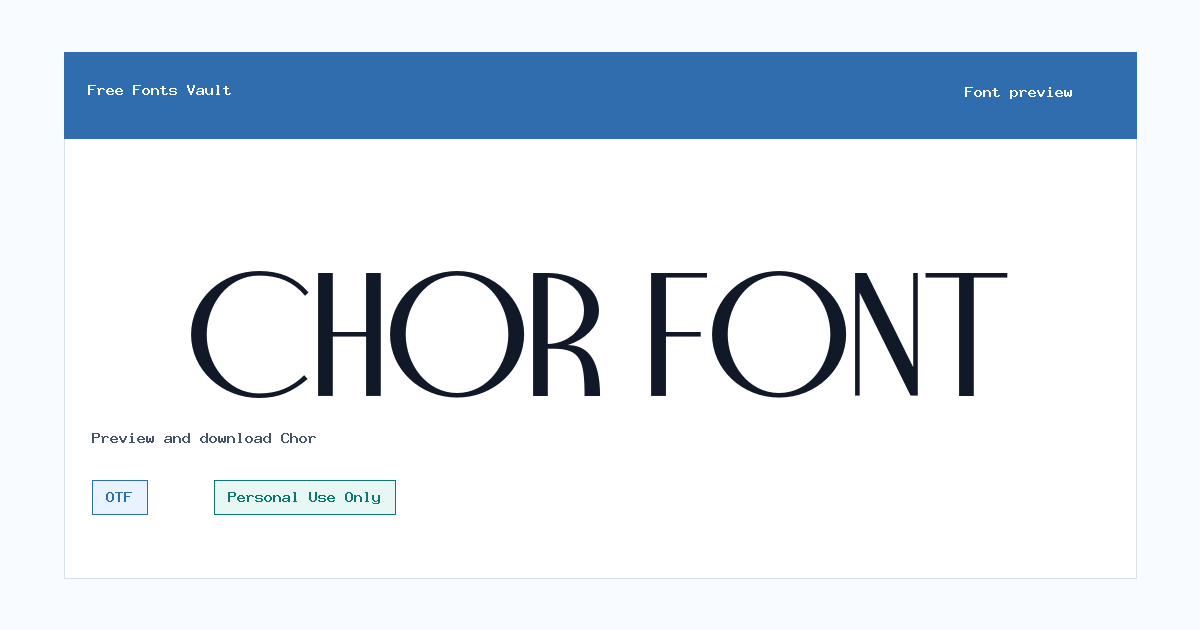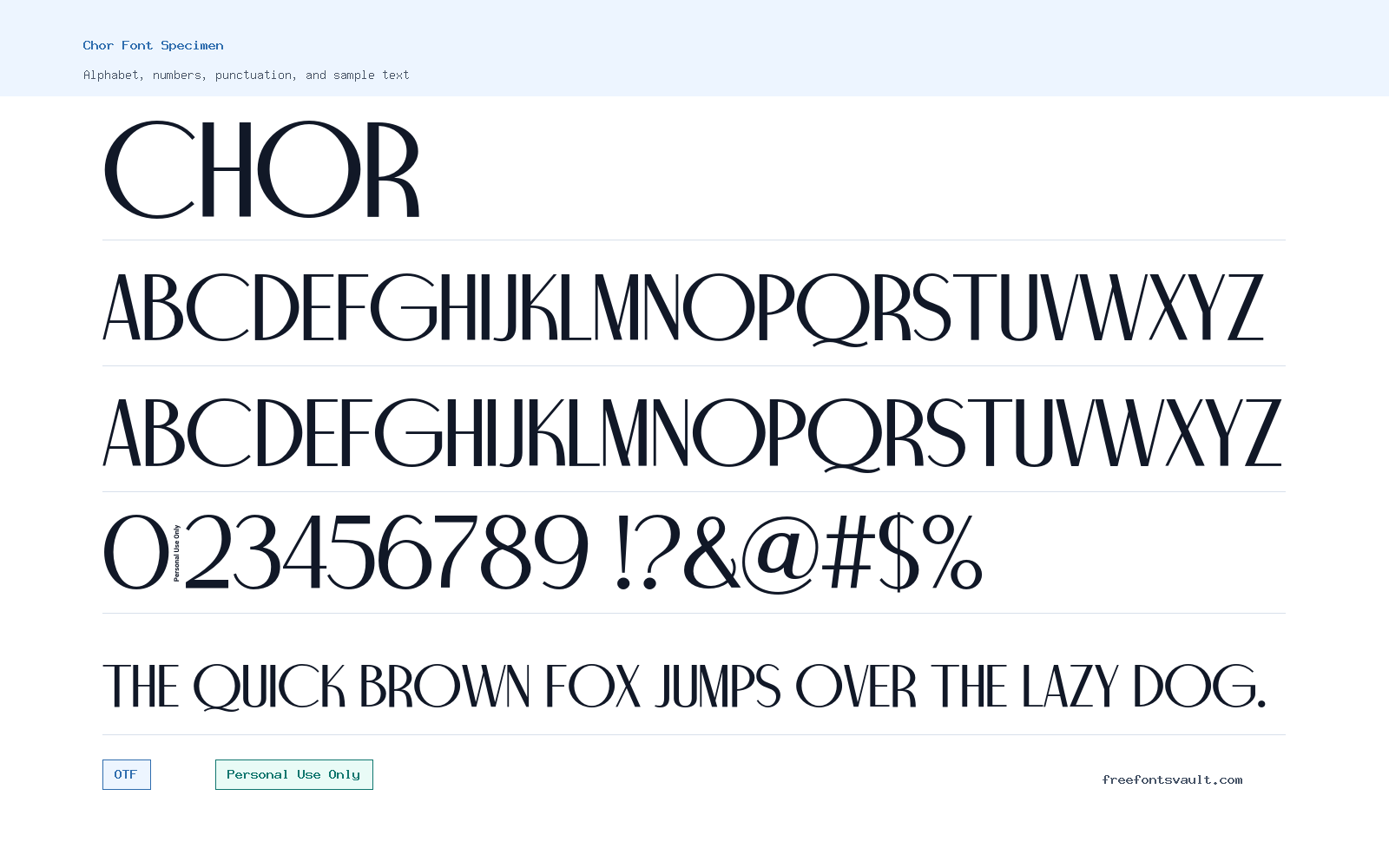
Chor
Chor font preview showing the family name
Chor Font
Chor font specimen showing alphabet, numbers, and sample text
Chor font.
Chor is a sans serif font by Zidan Zamzani, offered in an OTF regular style for personal-use projects. It is a practical choice when you want clean display lettering for previews, mockups, posters, and short design text.
About Chor Font
Chor is a simple sans serif typeface with a regular weight and normal style. Because the available file is an OTF font, it should work well in common design apps that support OpenType fonts, including layout, branding mockup, poster, and image-editing tools. The font page identifies Chor as a sans serif font and lists its license as Personal Use Only, so the safest way to approach it is as a font for non-commercial design practice, personal graphics, school projects, draft branding ideas, and private visual experiments.
• Sans serif regular style suitable for clean short-form display text
• Single regular variant with normal style and 400 weight
Use Chor where clean sans serif lettering is needed, especially in short text such as titles, labels, cover graphics, and mockup headings. Before using it in a finished design, preview punctuation, numbers, uppercase words, lowercase words, and any special characters you need. Pair it with a quiet serif or a neutral sans serif for supporting text, and avoid using too many bold visual elements around it if you want the font to stay readable.
Who designed Chor?
Chor is credited to Zidan Zamzani.
What style of font is Chor?
Chor is identified as a sans serif font with a regular, normal-style variant.
What fonts pair well with Chor?
For a simple layout, pair Chor with a restrained serif or a neutral sans serif for body copy. Keep the supporting font quieter so Chor can work as the main title or accent.